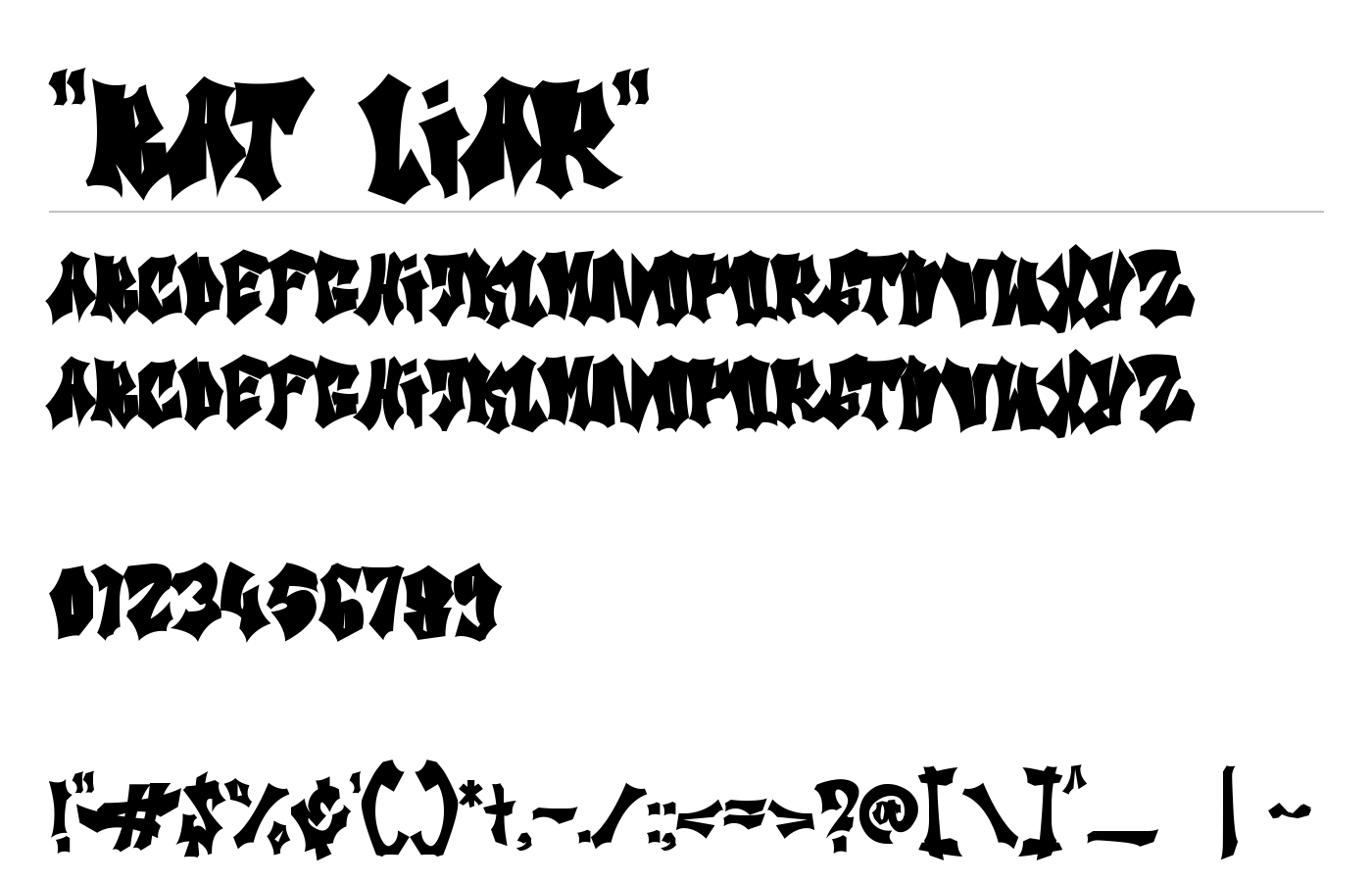
Bat Liar is a bold, condensed display font with heavy blackletter influences, featuring sharp, dramatic angles and strong strokes that give it a dark, gothic vibe. Its uppercase-only letterforms have a dense, impactful presence, making it ideal for striking headlines, logos, or designs that want to evoke a mysterious, edgy, or rebellious mood. This distinctive font works best in creative projects like posters, branding, or packaging where a bold, attention-grabbing style is desired.
"Bat Liar" Font
About "Bat Liar" Font